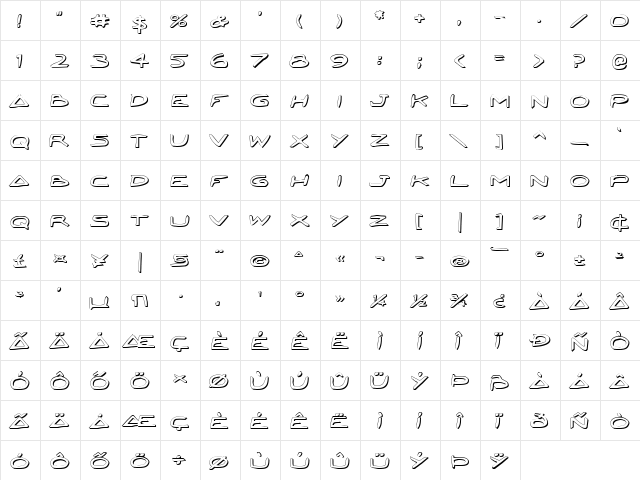
Jetta Bold Shadow Shadow
| Style | Shadow |
| Designer | Dan Zadorozny |
Design Context for Jetta Bold Shadow Typeface
Jetta Bold Shadow is built around its visual character rather than neutral utility — its distinctive forms are designed to make an impression at display sizes. Its bold stroke weight gives it real presence on the page.
Font Pairing: Pair with a clean neutral sans-serif for body copy to let Jetta Bold Shadow's character lead without overwhelming the composition.
Pro Tip: Use Jetta Bold Shadow exclusively at display sizes — it was designed to be seen, not read at length. Let a neutral companion handle body copy.